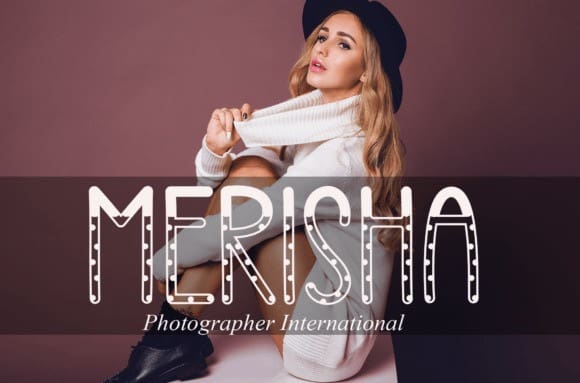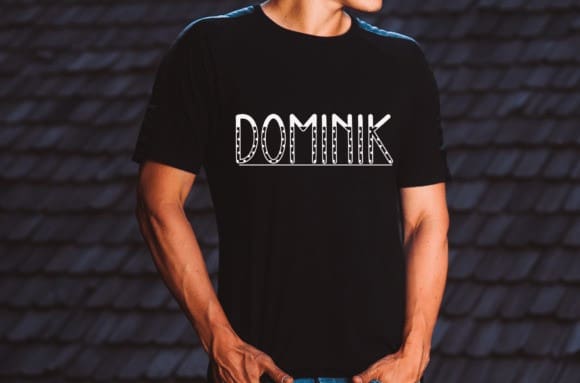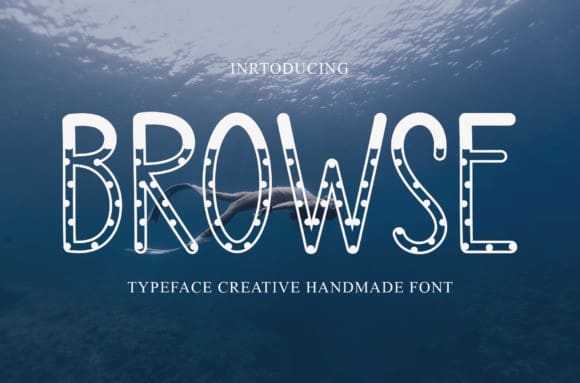
Browse Display Font
Browse Display Font is a sweet and friendly handwritten display font. Cute and fun, this font is ideal for writing wedding invitations, cards, or any other design that might need a fun touch!